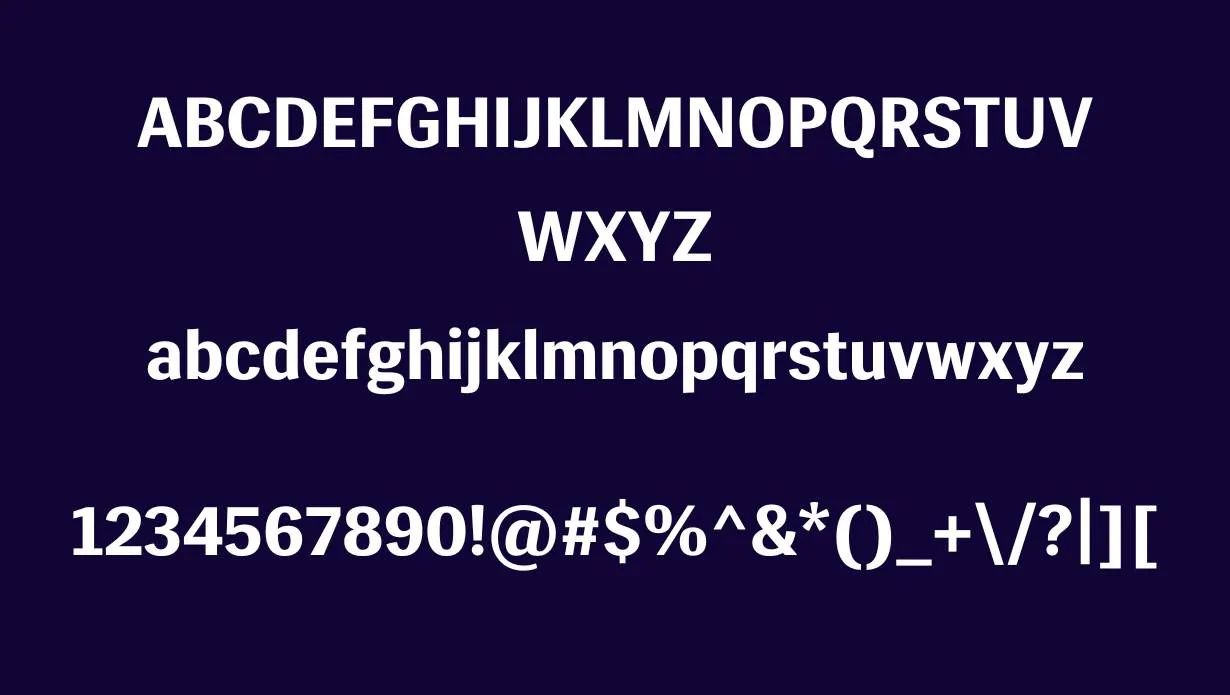
Siri font is like a friendly wave in text form—casual, approachable, and easy to get along with. When you use it, your words become like a conversation with a good friend, relaxed and comfortable.
It’s great for creating a laid-back atmosphere in your messages or designs. Siri’s letters flow smoothly, creating a sense of ease and friendliness. It’s like the font version of a chill chat on a sunny day.
| Name | Siri Font |
| Designer | Göran Söderström |